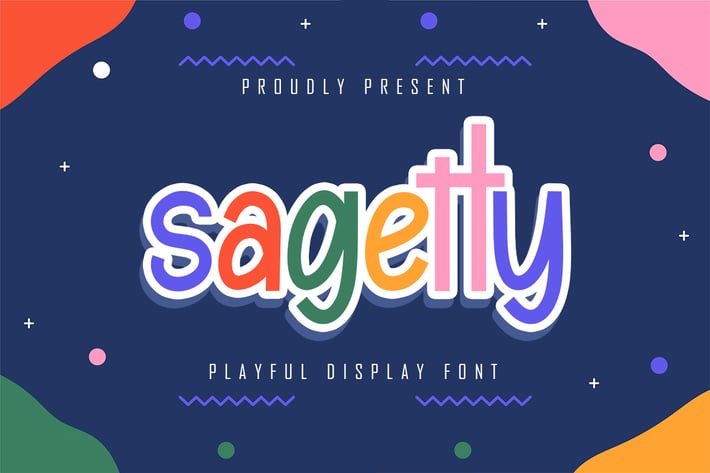
Sagetty - Playfull Display Font
Sagetty is a playful and cool display font. This font is perfect for children themed designs, especially when combined with bright colors.